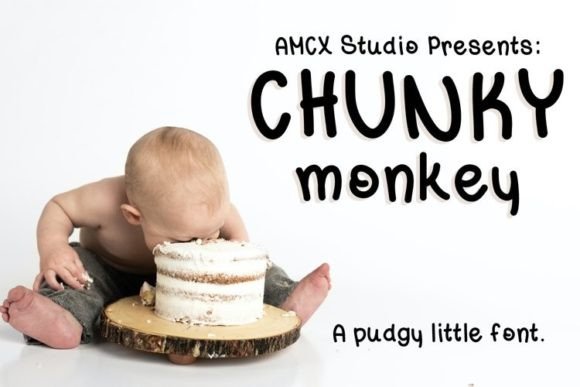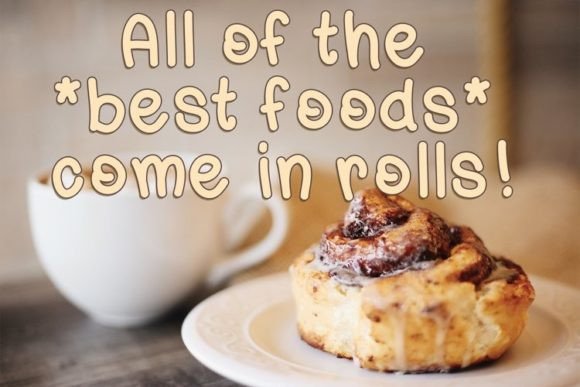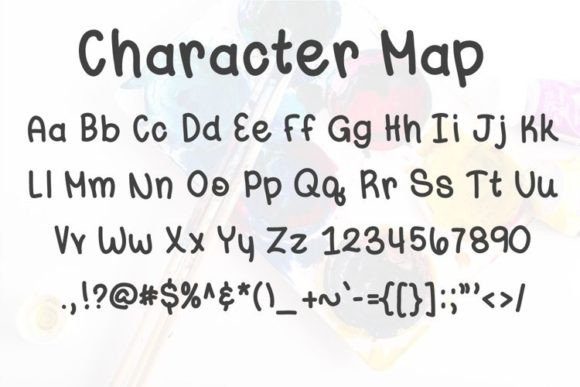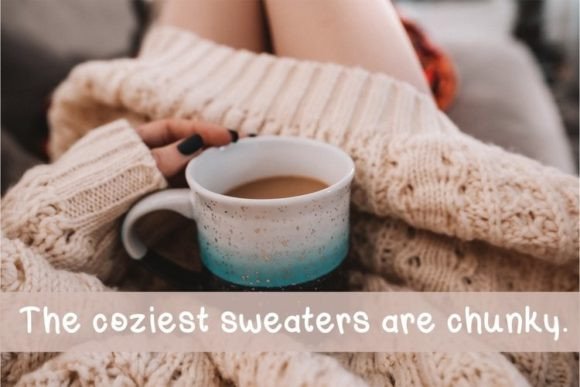
Chunky Monkey Font
About Chunky Monkey Font
**Chunky Monkey: A Fun and Friendly Handwritten Font**
*Chunky Monkey* is a delightful handwritten font that exudes fun and friendliness. With its whimsical and slightly quirky style, this font has the power to infuse cheerfulness and liveliness into all your design projects. When you add *Chunky Monkey* to your creative arsenal, you’re sure to fall in love with the results.
The defining characteristic of *Chunky Monkey* is its playful and friendly appearance. The font’s letterforms have a charming irregularity that gives it a unique and eye-catching quality. This distinctive style sets it apart from more formal fonts and makes it perfect for projects where a touch of whimsy is desired.
One of the standout features of *Chunky Monkey* is its ability to bring a smile to your designs. The font’s slightly quirky, hand-drawn look adds a sense of character and approachability to any project. It’s like having a cheerful companion that brightens up your creative journey.
*Chunky Monkey* excels in conveying a lighthearted and playful vibe. Its irregular and bouncy letterforms evoke a sense of spontaneity and fun. This makes it particularly suitable for projects that aim to capture a relaxed and enjoyable atmosphere.
In branding and logo design, *Chunky Monkey* adds a touch of personality and charm. Whether you’re creating a logo for a children’s brand, a playful product, or a quirky business, this font can help convey your brand’s friendly and approachable side.
For marketing materials, *Chunky Monkey* can be used to create eye-catching headlines, slogans, and call-to-action elements. Its distinctiveness ensures that your message will stand out and be remembered by your audience.
In children’s book illustrations, *Chunky Monkey* can bring characters and dialogue to life. Its fun and friendly style make it a perfect choice for creating engaging and visually appealing text in children’s literature.
For greeting cards, party invitations, and event posters, *Chunky Monkey* adds a touch of joy and celebration. Its playful and whimsical look can help set the tone for a fun and memorable occasion.
In crafting and DIY projects, *Chunky Monkey* is a versatile choice for adding a personalized and cheerful touch. Whether you’re creating handmade cards, party decorations, or custom gifts, this font can help you infuse your creations with character.
In summary, *Chunky Monkey* is a fun and friendly handwritten font with a whimsical and slightly quirky style. Its unique and eye-catching appearance makes it a valuable addition to your font collection. Whether you’re working on branding, marketing, children’s literature, or creative crafts, *Chunky Monkey* promises to bring a sense of fun and approachability to your designs, leaving a lasting impression on your audience.